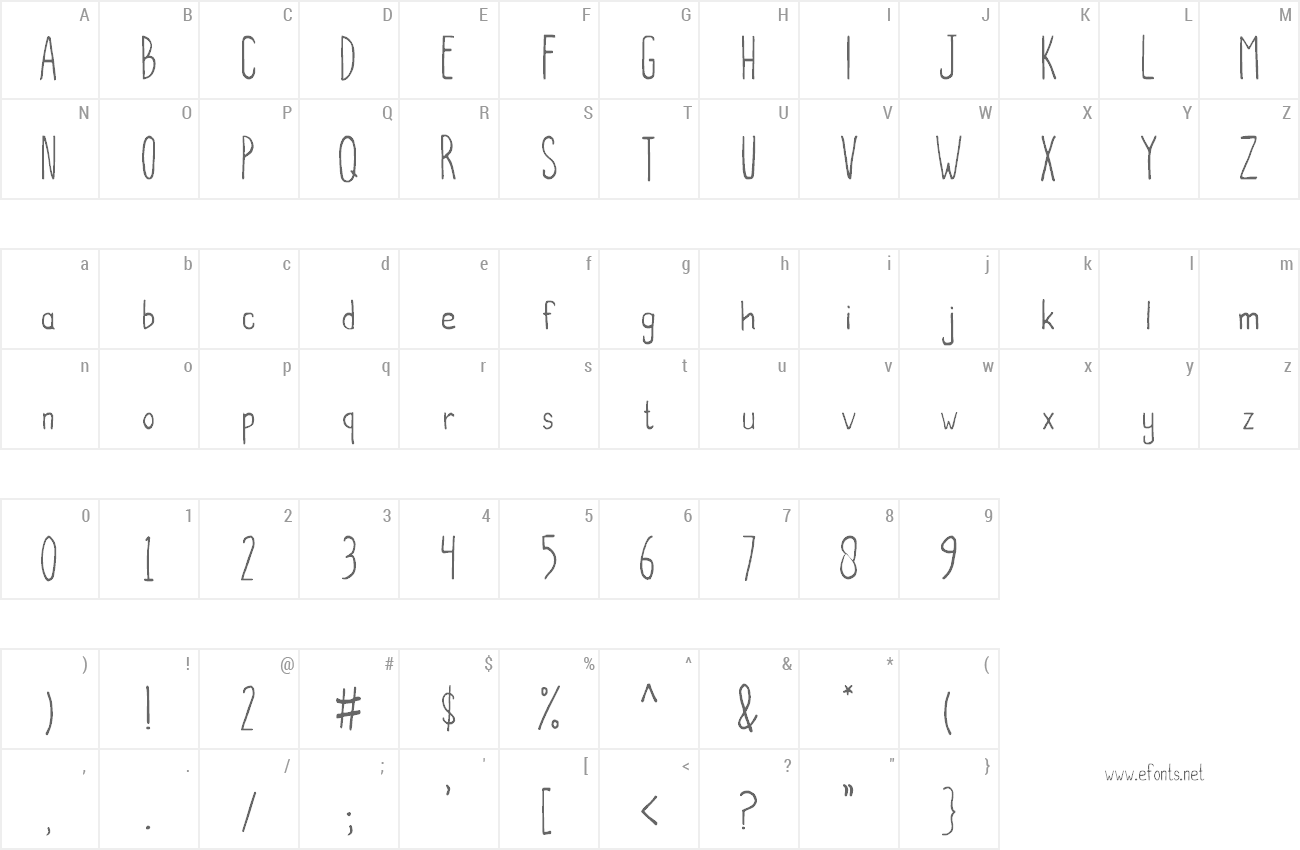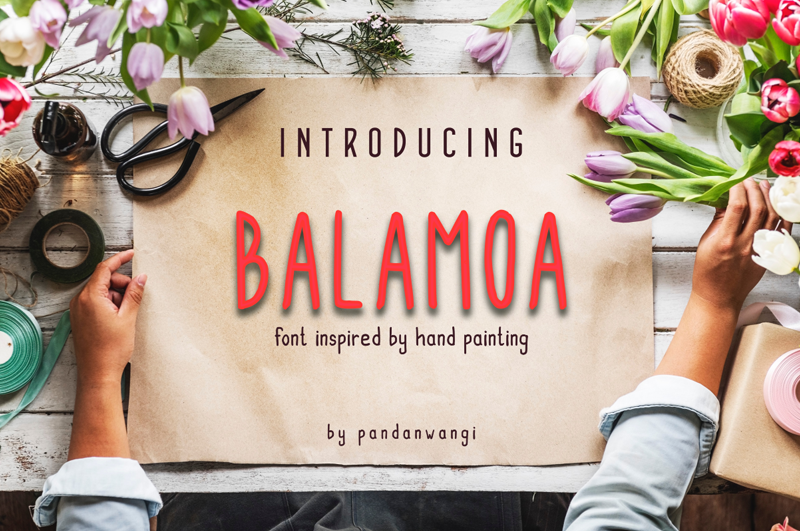
Preview and download Balamoa Font. Created by Pandan Wangi in Script Handwritten styles with Free for personal use license.
Introducing Balamoa family is a fun hand painted family. It includes 4 styles which can be paired perfectly together. Regular, Italic, Bold, and Bold Italic The Balamoa can be used for branding, product designs, logos, book content, cafe or coffee shop menu lists, quotes, watermarks, and much more! Thank for downloading BALAMOA FAMILY NOTE: This demo font is for PERSONAL USE ONLY! But any donation are very appreciated. Paypal account for donation : https://www.paypal.me/satupandanwangi Link to purchase full version and commercial license : https://www.creativefabrica.com/product/balamoa-family/ Thank You, Pandanwangi |